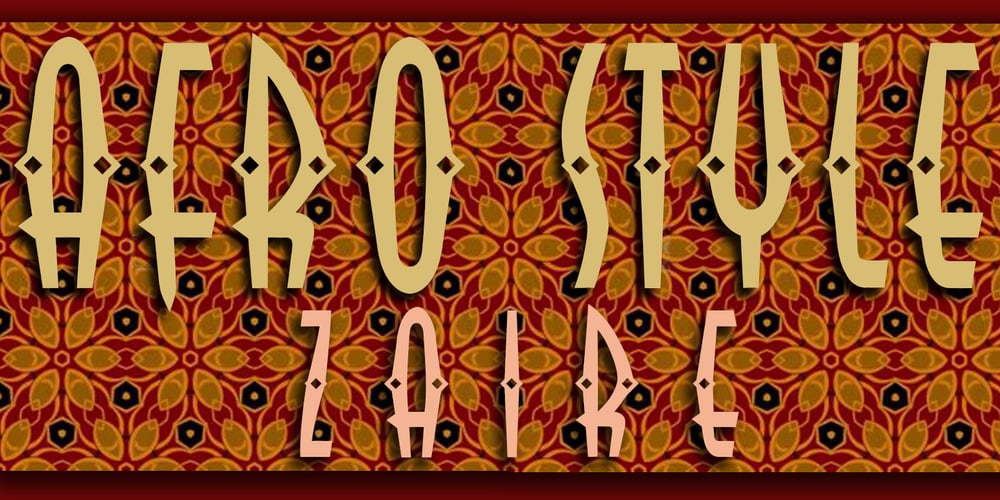
Zaire SF Font Family was designed by Anton Scholtz and published by Scholtz Fonts. Zaire SF contains 1 styles and family package options. Zaire SF is a distinctive, elegant, ethnic style font, inspired by the ancient masking traditions of the tribes indigenous to Zaire in Central Africa. The font captures the magic of the mask, representing the dance, the ceremony, the secret society. It evokes the very heart of Africa. Zaire is best used as a display font and is also effective for headings and posters. The tall, slim silhouette epitomizes the elegance of contemporary African design. It includes a full character set: characters for English, French, Italian, German, and Portuguese.